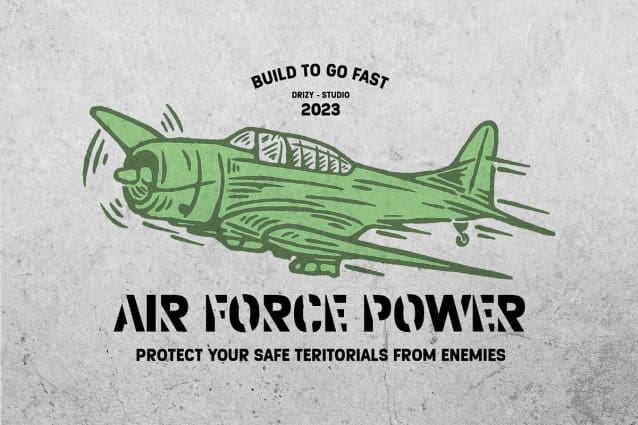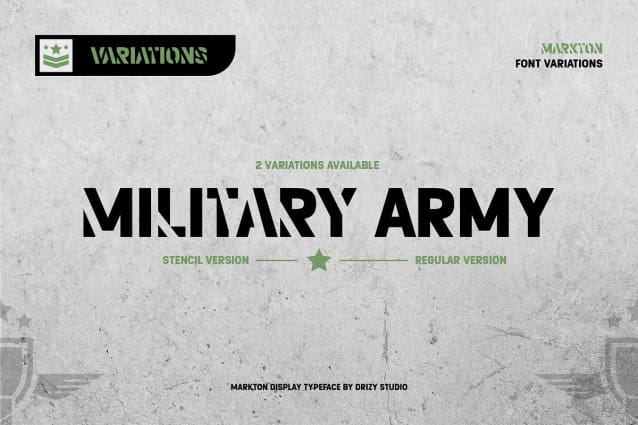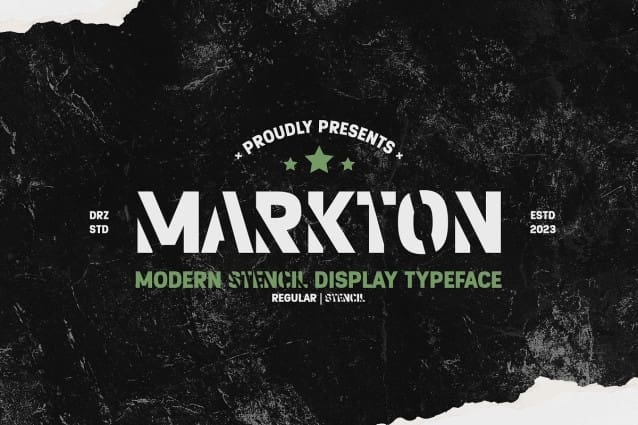
Markton Font
Markton Font is a captivating and contemporary stencil typeface that seamlessly blends elements of modern design with a classic stencil aesthetic. This typeface exudes a perfect balance between sleek, minimalistic lines and a distinctive, industrial charm.